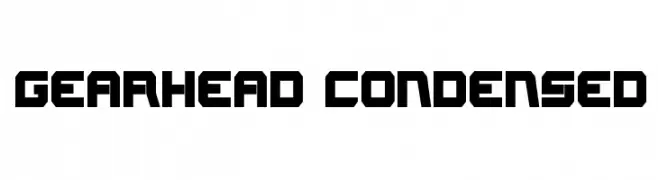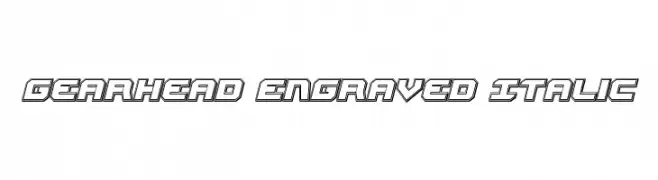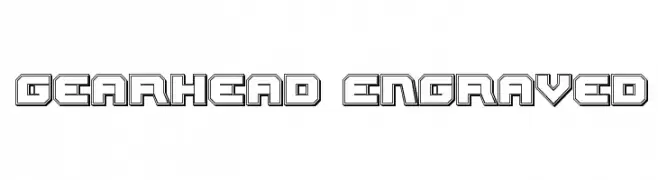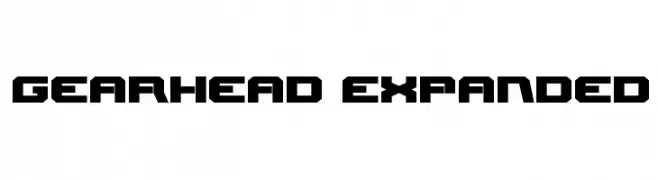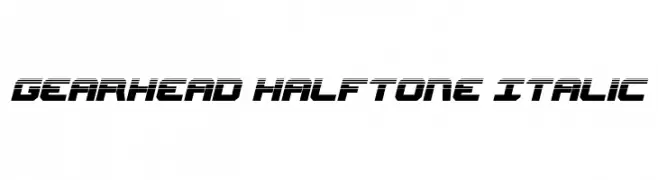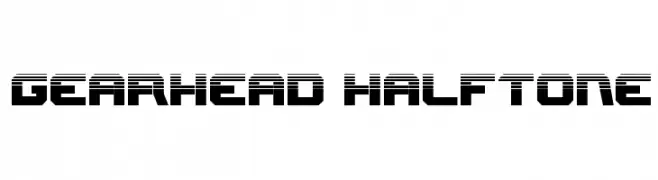
A bold, futuristic font with a three-dimensional, industrial design.
A bold, futuristic font with a chrome-like, layered design and italicized slant.
A bold, geometric font with an industrial and futuristic style.
A bold, condensed, and italic font with a futuristic, angular design.
A bold, industrial font with a 3D engraved effect and geometric design.
A bold, angular, engraved italic font with a modern, three-dimensional look.
A bold, geometric font with a futuristic and industrial style.
A bold, expanded, and italicized futuristic font with sharp, angular edges.
A bold, futuristic font with a halftone pattern and geometric design.
A bold, futuristic font with a halftone effect and italic style.